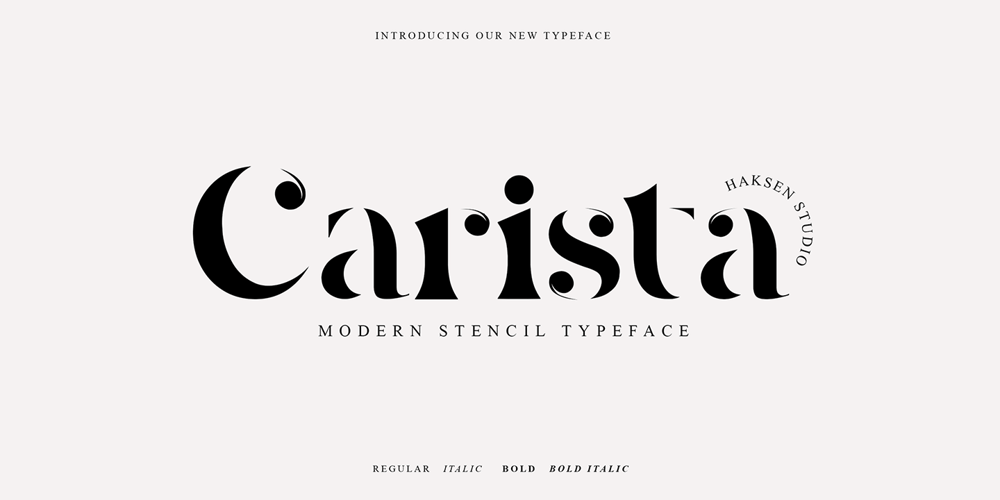
Carista Font Family was designed by Sarwo Edhi Prayitno and published by Haksen. Carista contains 4 styles and family package options. Carista is the family of classic serif style with Uppercase and Lowercase feel nice balanced. Provide alternates font in uppercase and lowercase variant style make the design letter looks incredible. Honestly it works perfectly for headlines, logos, posters, packaging, T-shirts and much more.Recommended to use in Adobe Illustrator or Adobe Photoshop with opentype feature.How to access Alternates Character?Open glyphs panel : In Adobe Photoshop choose tool Window >> glyphs In Adobe Illustrator choose tool Type >> glyphs If you have questions, just send me a message and I’m glad to help.Have a great day,Haksen